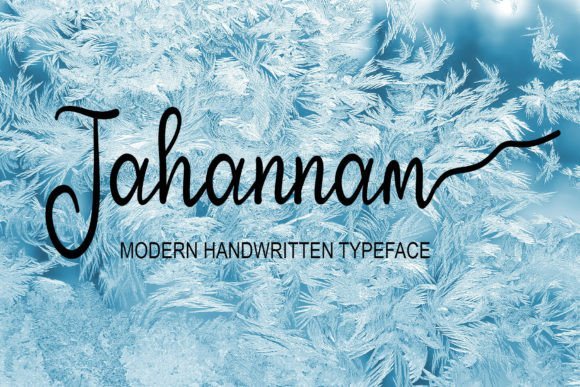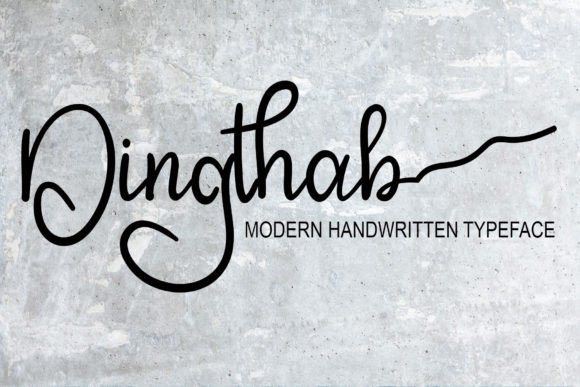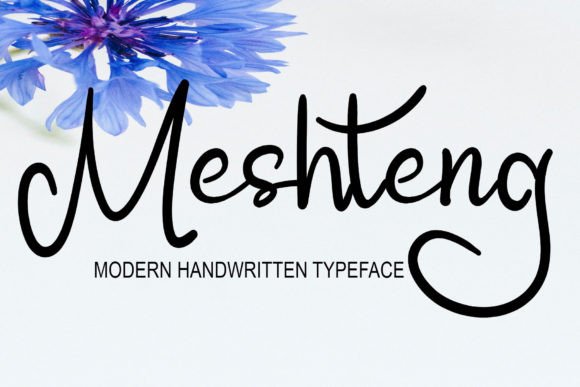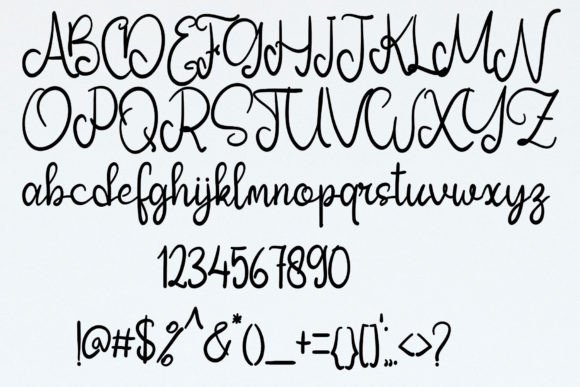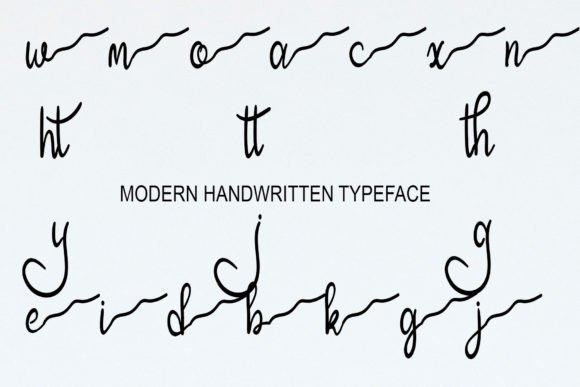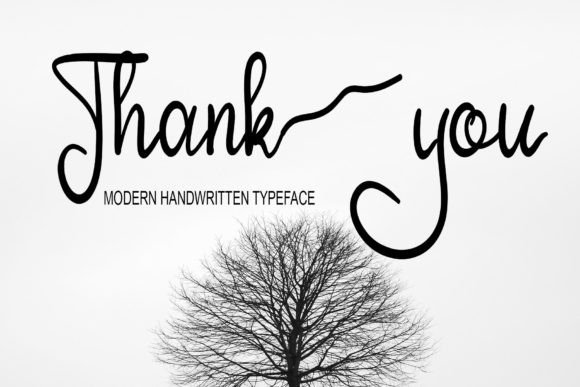
Unleash Your Creativity with the Jahannam Font
Have you ever found yourself sitting in front of a blank canvas, staring at a blank piece of paper, and waiting for inspiration to strike? For many creatives, this moment of uncertainty can be daunting, but it can also be a catalyst for something truly special. That’s where the right tools come in – and that’s exactly what the Jahannam Font is designed to do.
This charming handwritten font is more than just a pretty face; it’s a versatile design solution that’s perfect for a wide range of projects. Whether you’re working on a children’s book, a wedding invitation, or a social media campaign, the Jahannam Font is sure to bring a touch of warmth and personality to your design. And with its natural, unique style, the possibilities are endless – the only limit is your imagination!
As a designer, having access to a high-quality font like the Jahannam Font can be a game-changer. It’s the perfect addition to any design toolkit, and it’s sure to help you stand out from the crowd.
Jahannam Font Key Features
- Font Style: Script, Calligraphy
- Unique Characteristics: Ornate, decorative, and intricate design elements
- Font Family: Jahannam
Jahannam Font Review
As a designer, I’m always on the lookout for unique and eye-catching fonts to elevate my designs. The Jahannam font is one such find that caught my attention, but does it deliver? ✨
- The intricate calligraphy and ornate details make it perfect for adding a touch of elegance to traditional or cultural designs.
- The font’s versatility allows it to be used for both modern and vintage-inspired projects.
- The bold and dramatic flair of the font makes it ideal for headings, titles, and other prominent text.
- ⚠️ The font may be too ornate for simple or minimalist designs, which can make it overwhelming and distracting.
- ⚠️ The font’s complexity may also make it difficult to read at smaller font sizes, which can impact legibility.
- ⚠️ The font may not be suitable for body text or large blocks of text, where simplicity and readability are crucial.
Overall, I think the Jahannam font is a great addition to any designer’s toolkit, but it’s essential to use it judiciously and in the right context. When used correctly, it can add a touch of sophistication and drama to designs, but it’s not a one-size-fits-all solution.
The Jahannam font is commonly used for:
- Typography in graphic design
- Creating unique and exotic text effects
- Designing for Middle Eastern or Arabic cultural contexts